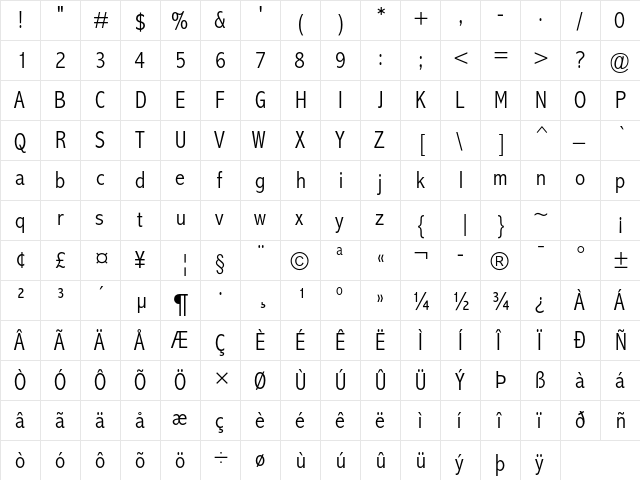
Abadi MT Std Cond Light
Design Context for Abadi MT Std Typeface
Abadi MT Std is a composed and adaptable typeface that performs quietly and consistently across a wide range of design contexts. The delicate stroke weight brings airiness and refinement to layouts. The condensed width makes it efficient for tight spaces without sacrificing legibility.